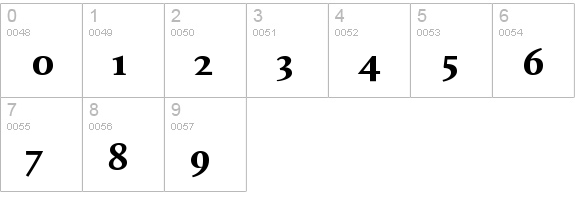
DTLAlbertinaST Bold Font Details
DTLAlbertinaST Bold is a strong, high-contrast variant in the DTLAlbertinaST typeface family \xE2\x80\x94 well suited to headlines, attention-grabbing titles, and strong calls-to-action.
The DTLAlbertinaST Bold font is a striking and versatile typeface that exudes confidence and modernity. Its bold and impactful design makes it perfect for headlines, titles, and other display purposes. With its clean lines and elegant curves, this font is sure to make a statement in any design project. And the best part? It's completely free! You can download the DTLAlbertinaST Bold font for free at FontsMarket.com. Whether you're a designer looking to add a bold touch to your work or someone in need of a standout font for a personal project, DTLAlbertinaST Bold has got you covered. Don't miss out on this fantastic opportunity to enhance your designs with this stylish and eye-catching font.